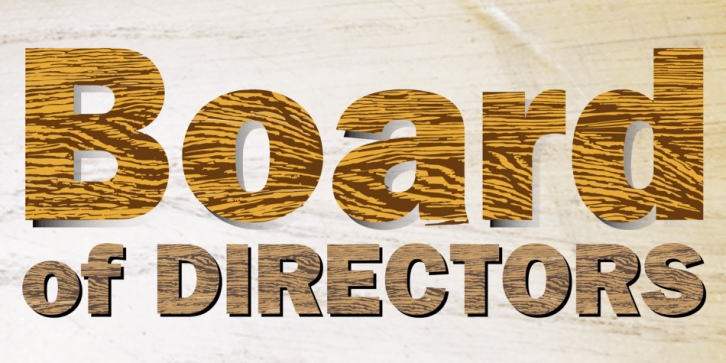
Frank Woods is a display, grunge and novelty font family. This typeface has three styles and was published by Wiescher-Design.
»FrankWoods« is a wooden typeface based on the form of Franklin Gothic Heavy. The three cuts fit together and enable the user to create a lot of impressive variations. Enjoy! The amount of points in the font make it impossible to create Opentype versions, but this Truetype version works excellent on MACs and PCs.
· Frank Woods Positive
· Frank Woods Negative
· Frank Woods Shadow